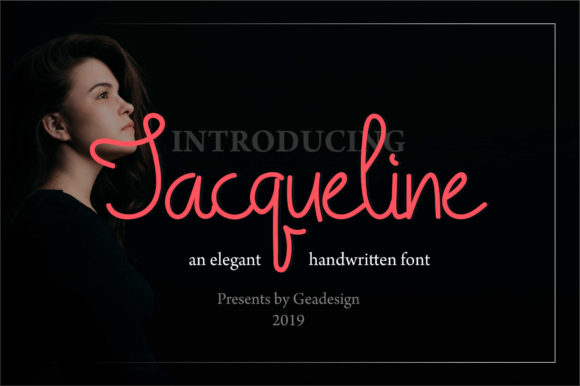
Step into the realm of elegance with Jacqueline Font, a script font that exudes a captivating blend of romance and refinement. Crafted with meticulous attention to detail, Jacqueline is not merely a font; it's an invitation to embark on a journey of creativity, where every letter tells a story and design are elevated to new heights.
With its graceful curves and enchanting flow, Jacqueline captivates the eye, adding an air of sophistication to any project. Whether you're a seasoned designer or just starting your creative adventure, Jacqueline is your perfect companion, guiding you effortlessly towards stunning outcomes.
Unleash the power of Jacqueline to transform your designs into works of art. Its versatility knows no bounds, effortlessly adapting to any style or aesthetic. From heartfelt love letters and wedding invitations to stylish branding and social media posts, Jacqueline molds itself seamlessly into your vision, adding a touch of elegance that leaves a lasting impression.
Experience the joy of effortless creativity with Jacqueline. Its user-friendly nature makes it a breeze to work with, allowing your ideas to flow effortlessly onto the page. Say goodbye to frustration and hello to seamless design, as Jacqueline becomes an extension of your artistic expression.
Don't settle for ordinary fonts; embrace the extraordinary. Jacqueline is not just a collection of letters; it's a gateway to a world of beauty and refinement. Its ability to evoke emotions and create a lasting impact is unmatched, leaving your audience captivated and inspired.
Join the ranks of creative visionaries who have discovered the magic of Jacqueline. Let your designs bloom with elegance and romance, and watch as your projects take on a new life, imbued with the timeless beauty of this extraordinary font.